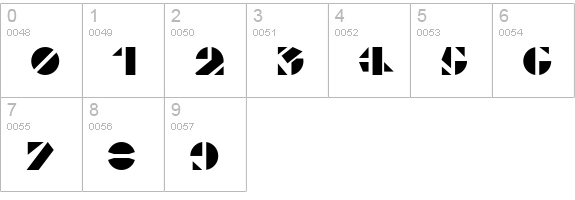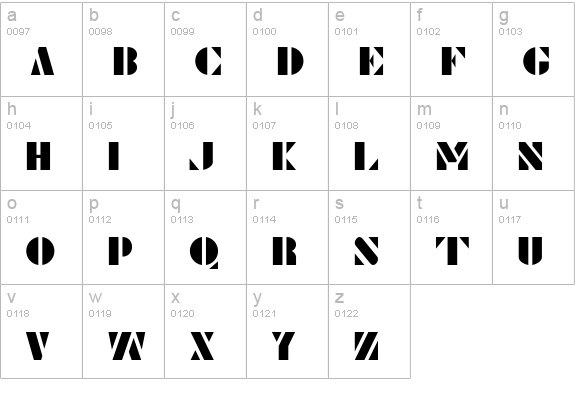
Introducing Le Pochoir font, a stunning typeface that effortlessly combines elegance with a touch of modernity. This versatile font is perfect for adding a unique and stylish flair to any design project, whether it be a logo, branding materials, invitations, or even website headlines. Le Pochoir font features clean and crisp lines, exuding a sense of sophistication and professionalism. Its bold and slightly rounded letterforms command attention, making it ideal for grabbing the viewer's eye and leaving a lasting impression. One of the most exciting aspects of Le Pochoir font is that it is available for free! Yes, you read that right. This exceptional font can be freely downloaded at FontsMarket.com, allowing designers and enthusiasts alike to access its beauty without any cost. With Le Pochoir font, the possibilities are truly endless. Its versatile nature allows it to effortlessly adapt to various design styles, from minimalist and modern to retro and vintage. Its timeless appeal ensures that it will remain relevant and eye-catching for years to come. So why wait? Take advantage of this incredible opportunity and download Le Pochoir font today from FontsMarket.com. Unleash your creativity and elevate your design projects with this stunning typeface. Whether you're a professional designer or a DIY enthusiast, Le Pochoir font is sure to become a valuable addition to your font library.